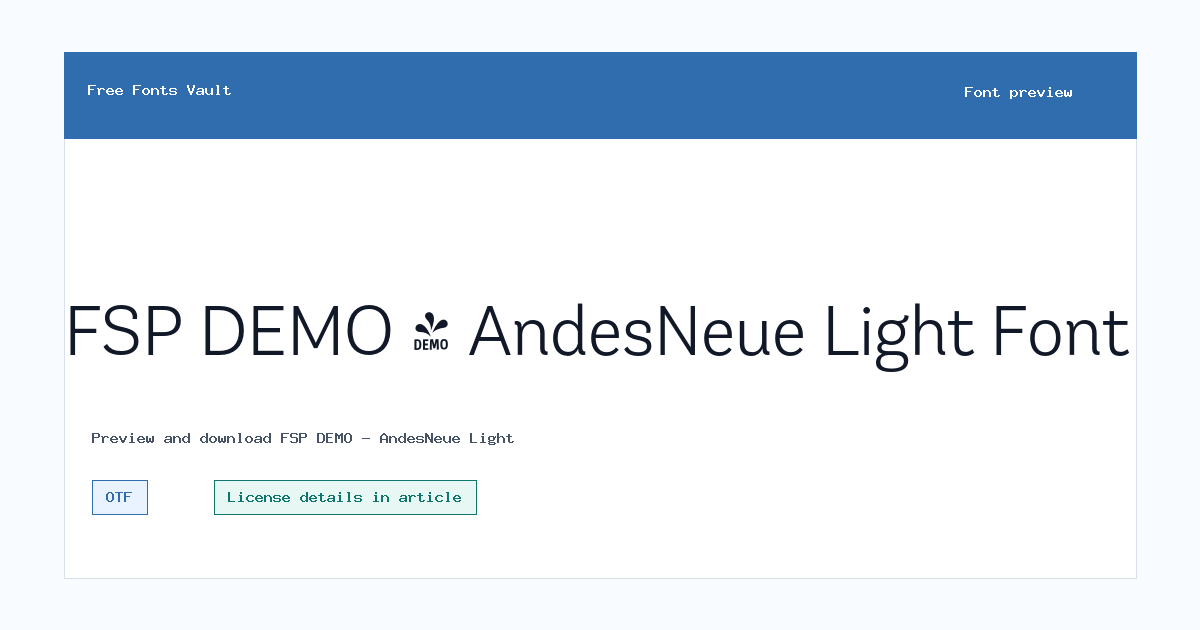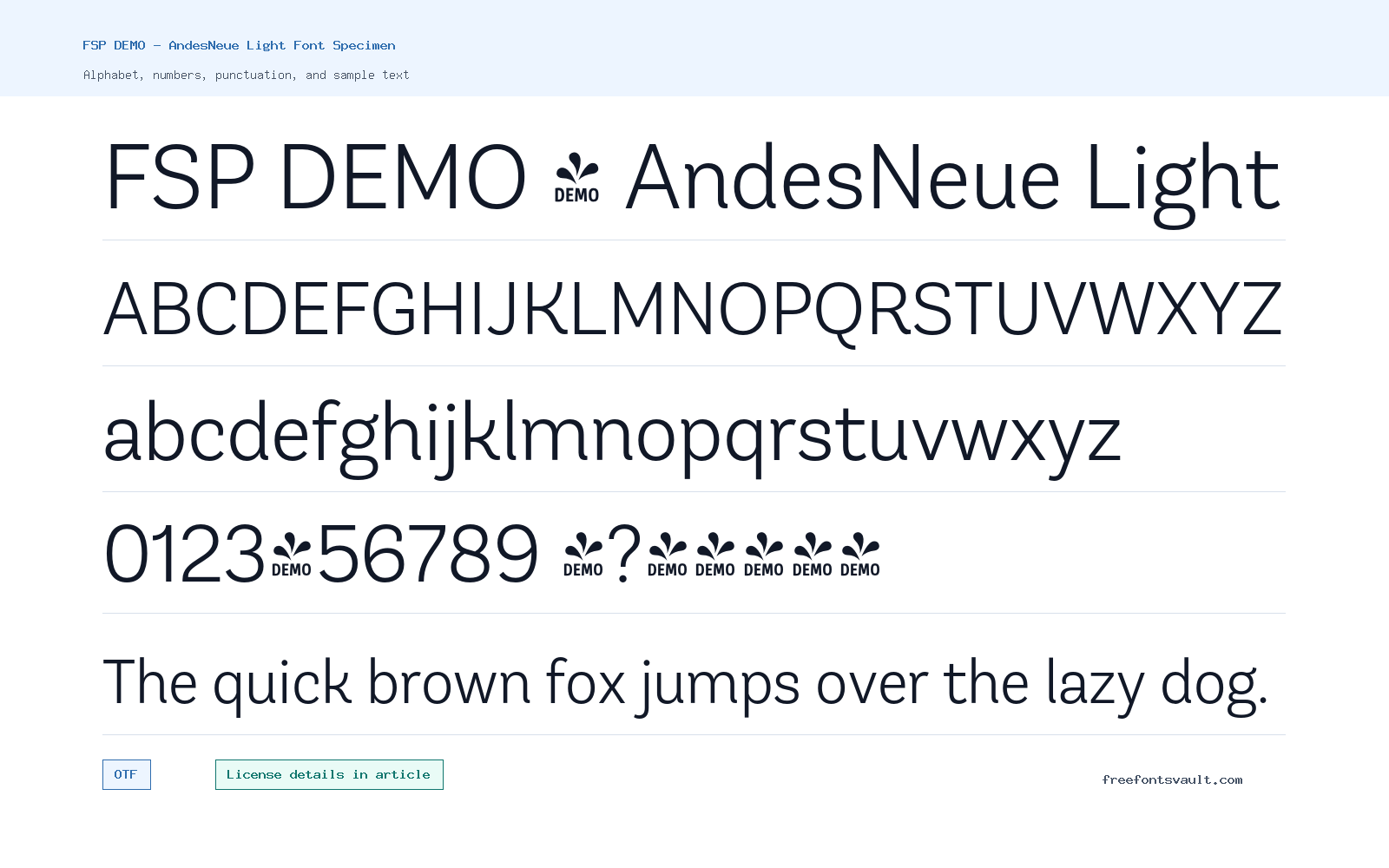
FSP DEMO - AndesNeue Light
• Designer Daniel Hernandez
• Foundry LatinoType Ltda.
Andes Neue Light is a light-weight sans serif demo font from the Andes Neue family. It is useful for previewing a clean, low-contrast text style before deciding whether the full licensed family fits your project.
About Andes Neue Light
Andes Neue is a sans serif collection by LatinoType, with Daniel Hernandez named as the designer in the font details. The Light style has a thin, calm appearance that works best when the text has enough space to breathe. It is not the kind of weight to rely on for tiny labels or dense body copy, but it can give headings, captions, menus, and short editorial lines a softer tone.
• Light sans serif style with a 300 font weight
• Part of the Andes Neue family sold by LatinoType
• Short headings with generous spacing
• Editorial titles, captions, and clean layout mockups
• Testing a light sans serif tone before buying the full family
Daniel Hernandez is listed as the designer, and LatinoType Ltda. is listed as the foundry.